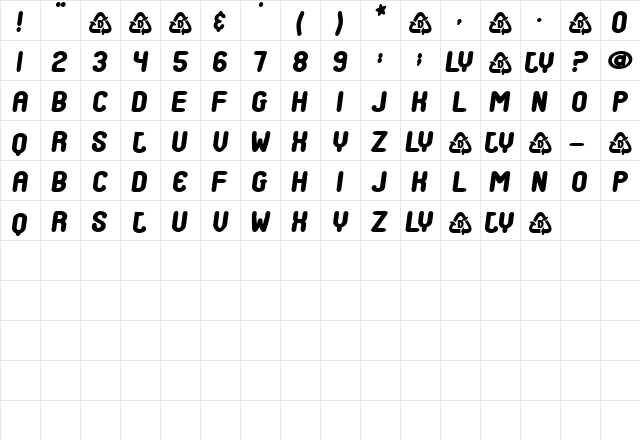
TrainInVain Regular
Design Context for TrainInVain Typeface
TrainInVain offers clean, dependable letterforms without strong stylistic allegiance, making it a practical choice for designers who need flexibility.